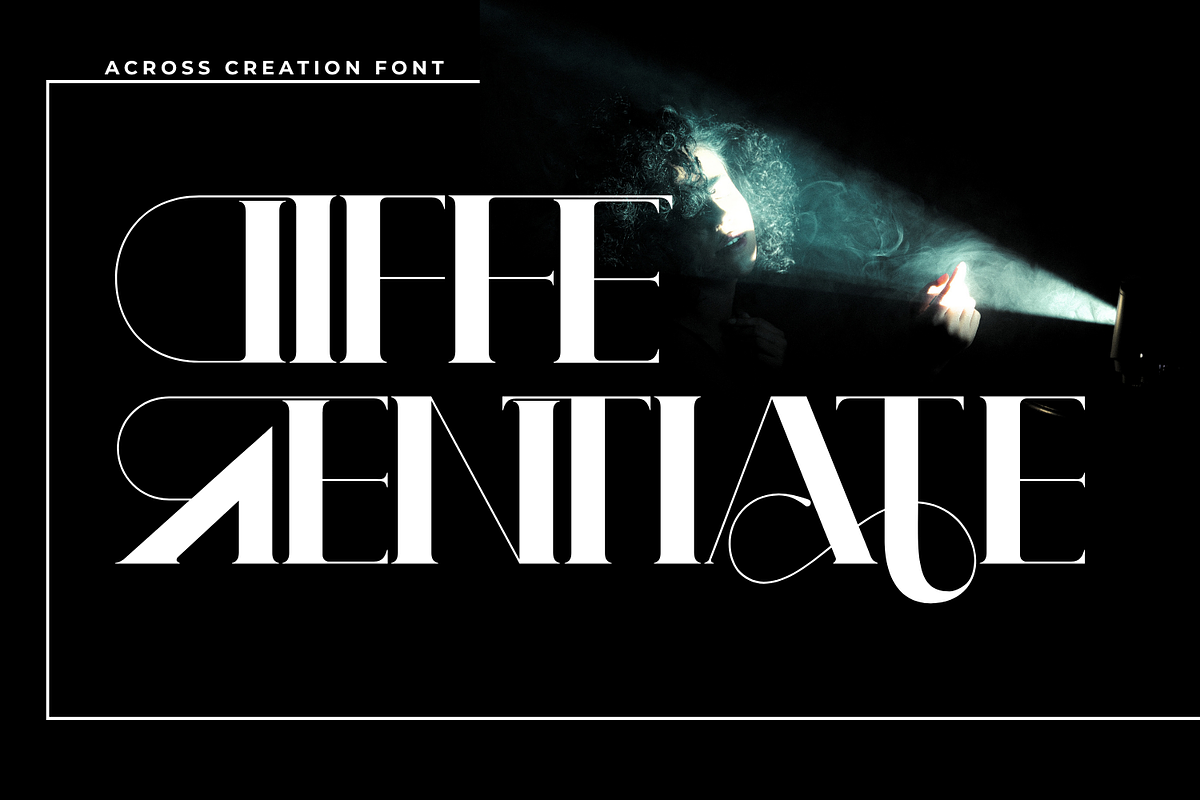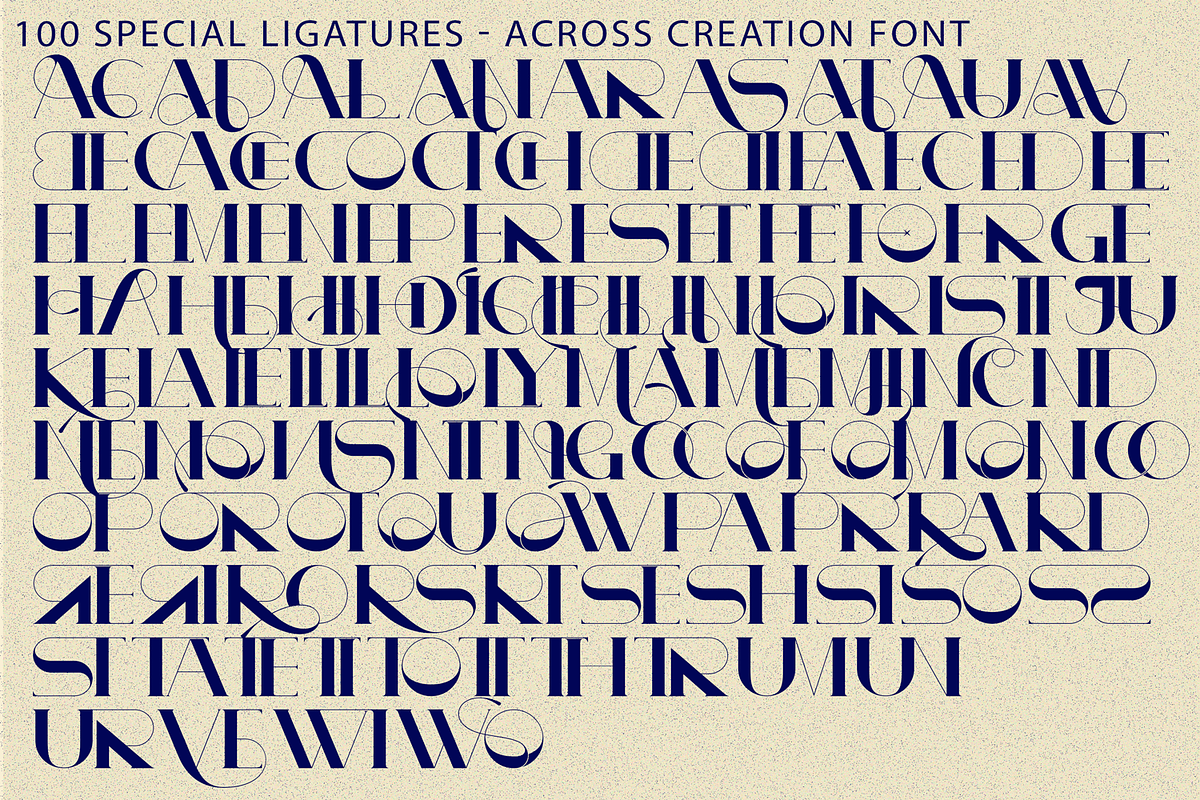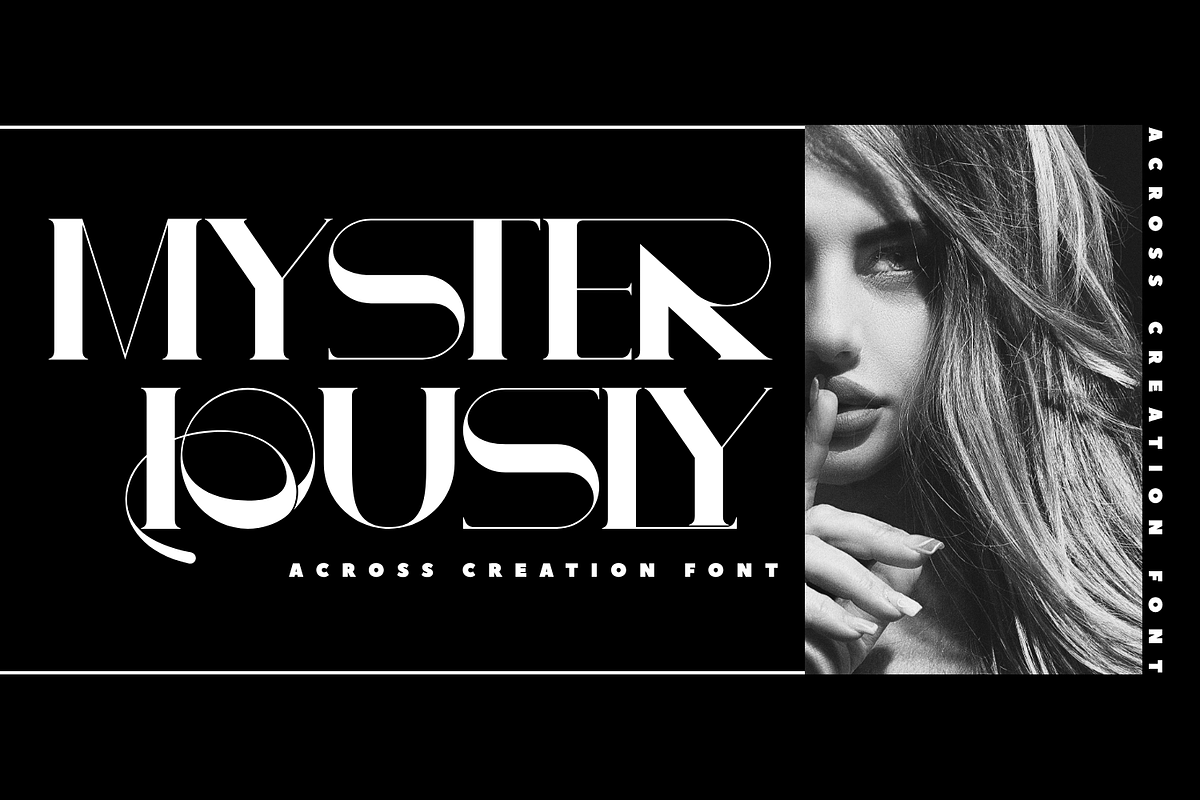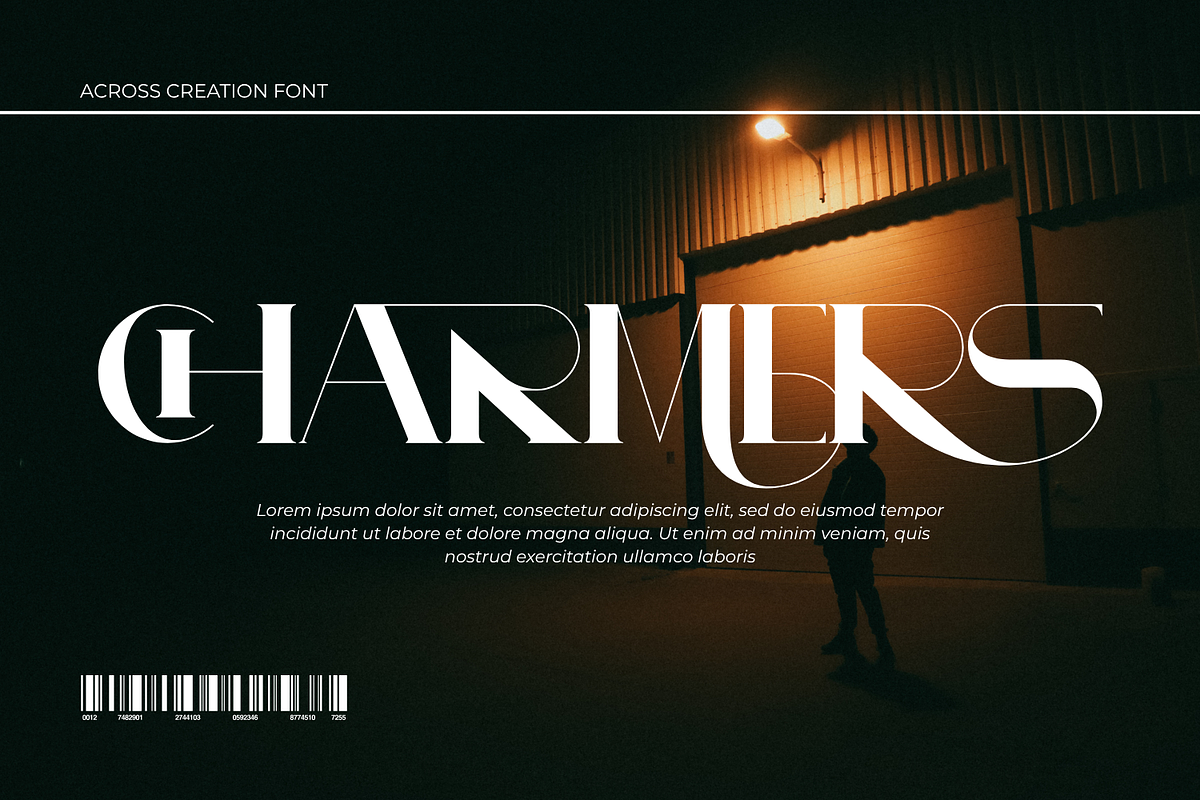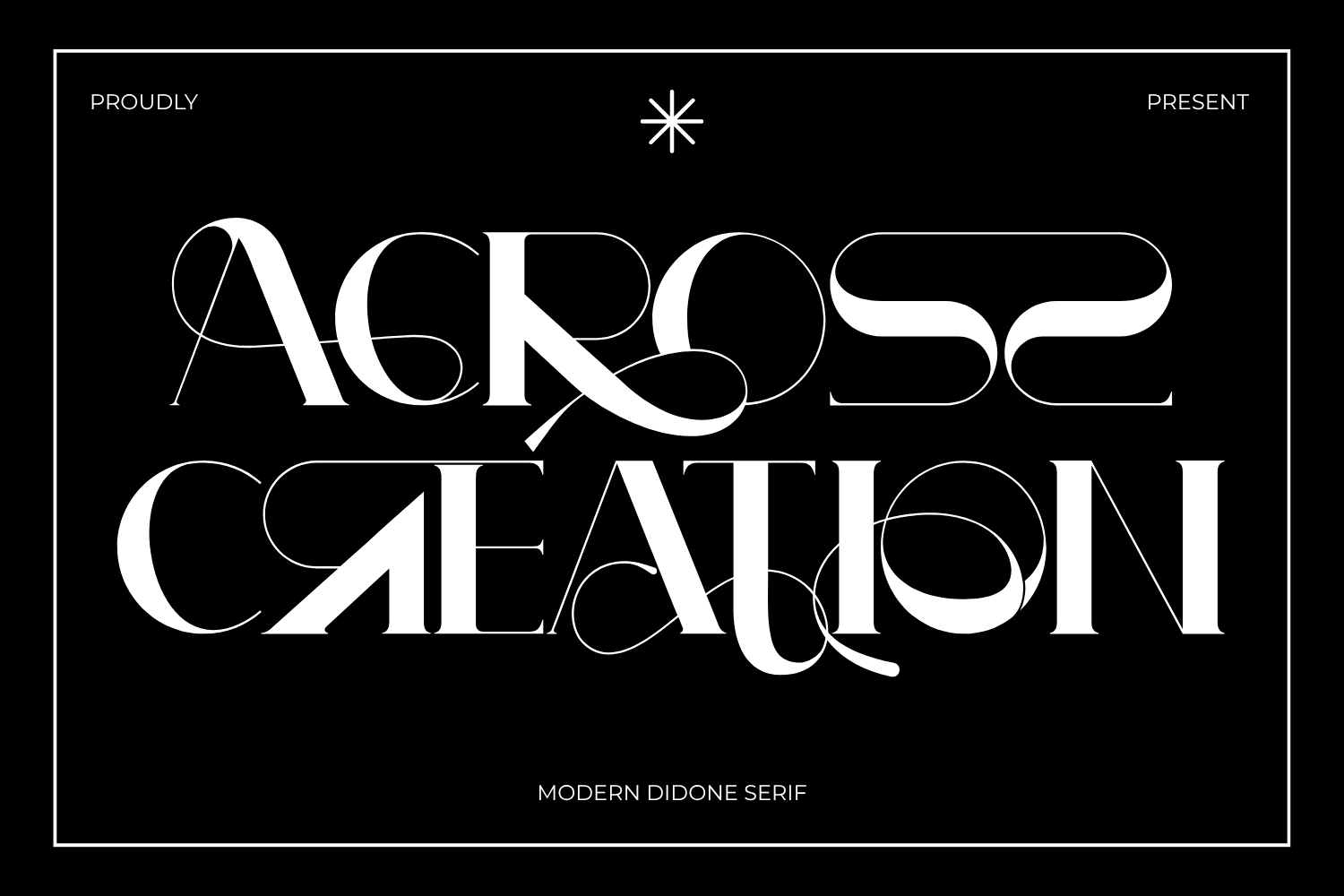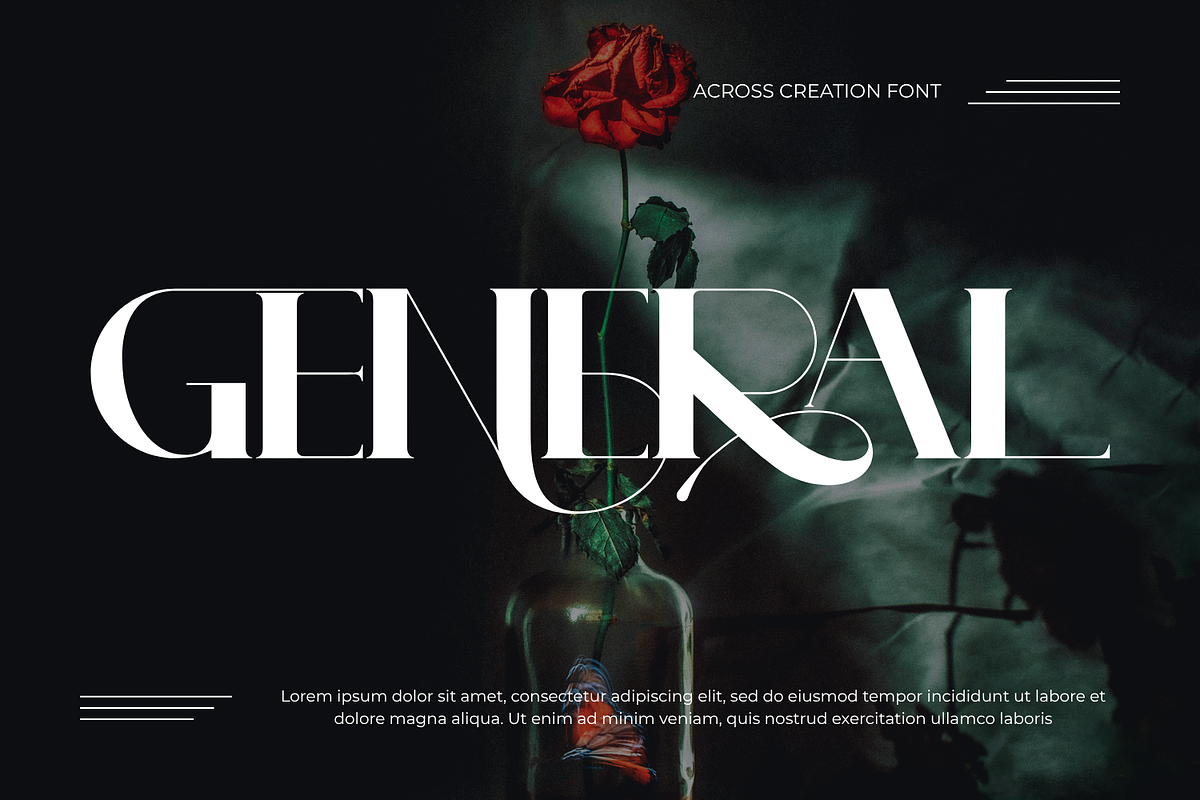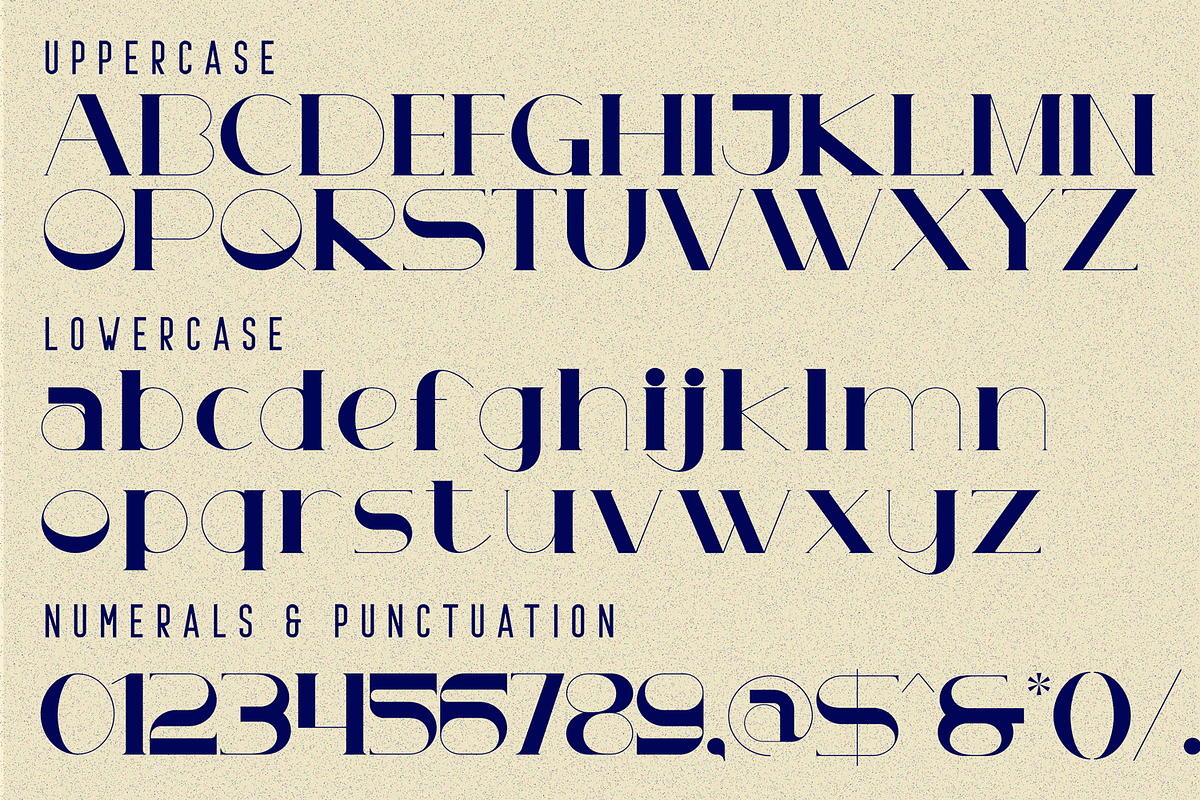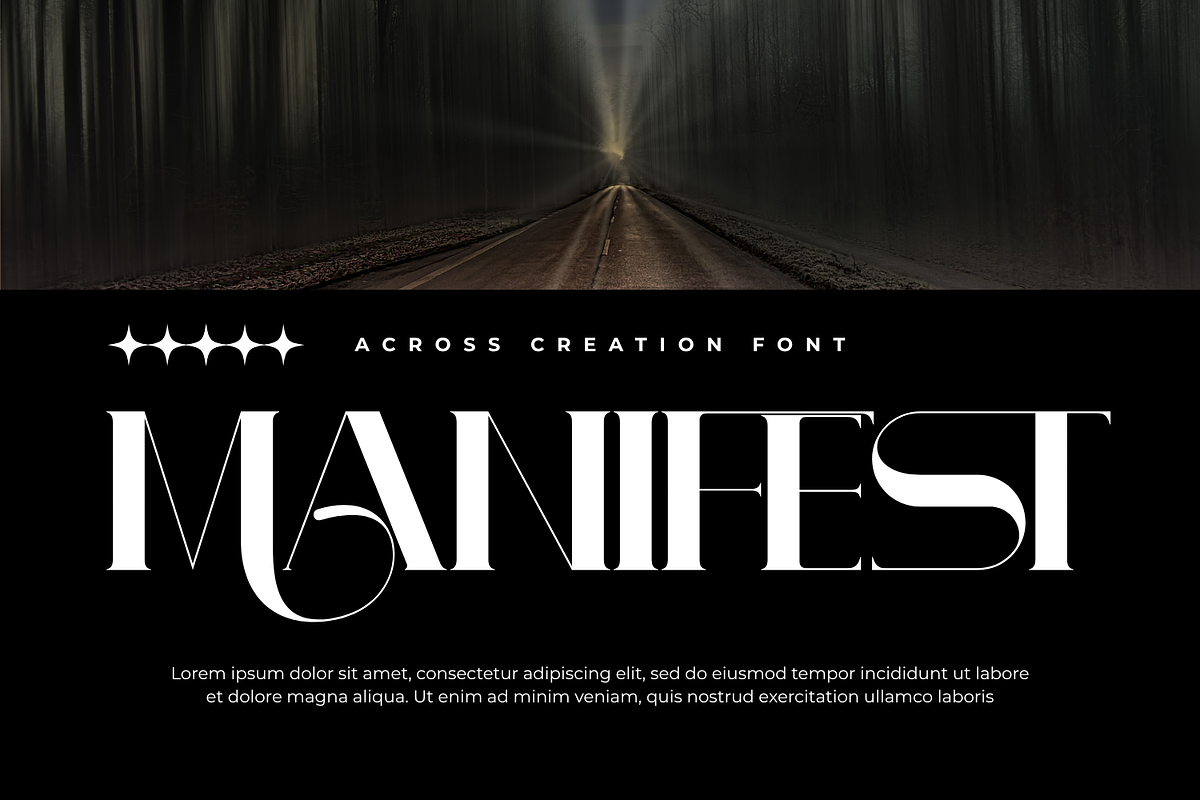
ACROSS CREATION FONT
ACROSS CREATION FONT– Modern High-Fashion Serif & Avant-Garde Experimental Display Font is a spellbinding, avant-garde display serif font crafted at the intersection of high-fashion editorial typography, geometric wireframe art, and experimental luxury design. Defined by its extreme stem contrast, sweeping hairline circular loops, and bold architectural letterforms, this typeface effortlessly turns standard headlines into museum-worthy graphic masterpieces.
Inspired by the refinement of modern editorial typography while embracing an avant-garde approach, ACROSS CREATION transforms familiar serif forms through elongated terminals, oversized curves, delicate loops, and unexpected intersections. The contrast between restrained classical details and expressive ornamental elements gives the typeface a sophisticated yet artistic personality.
🔤Features:
Uppercase & Lowercase Letters
Around 100 Special Ligatures & Alternates
Accented Characters for multilingual support
🔤About 100 ligatures combined with Stylistic Alternates Font:
AC AD AL AN AR AS AT AU AV BE CA CE CH CO CT DE DI EA EC ED EE EL EM EN EP ER ES ET FE FO FR GE HA HE HI HO IE IC IL IN IO IR IS IT JU KE LA LE LI LL LO LY MA ME MI NC ND NE NG NO NT NS OC OF OM ON OO OP OR OT OU OW PA PR RA RD RE RI RO RS RT SE SH SI SO SS ST TA TE TH TI TO TR TT UM UN UR VE WI WO